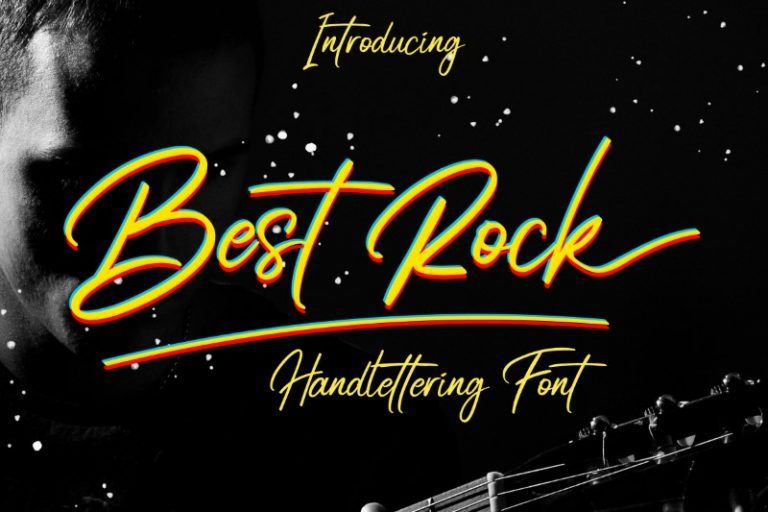
Best Rock
Best Rock is a hand-lettered script font with sweeping curves for music-inspired graphics, brand names, T-shirt lettering, and expressive quotations.
Curved entry strokes and a lively slant give Best Rock an informal rhythm. The lettering suits a short headline or name that should carry the energy of a handmade sign, with the surrounding layout kept simple enough to show its movement.
Design ideas
• Music-themed titles and creative brand marks
• T-shirt graphics and merchandise lettering
• Posters and short quotation designs
Give the longest strokes space and test the phrase as one line before stacking it. Use a plain font for supporting details so the hand lettering remains dominant.